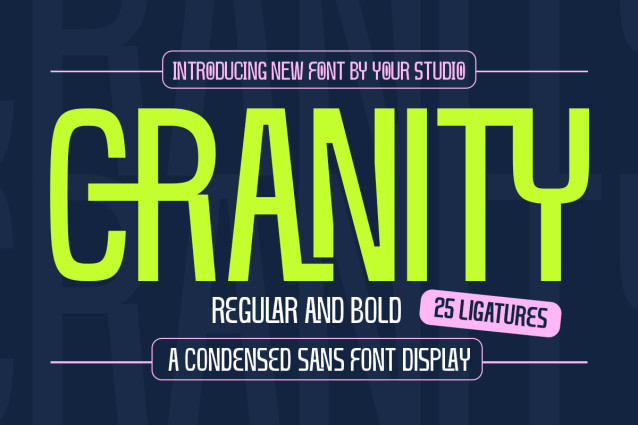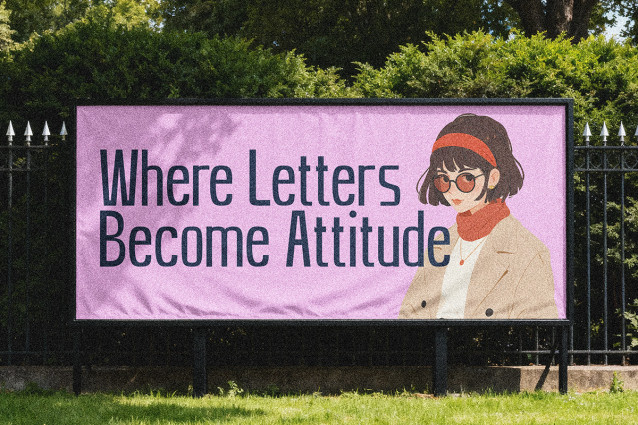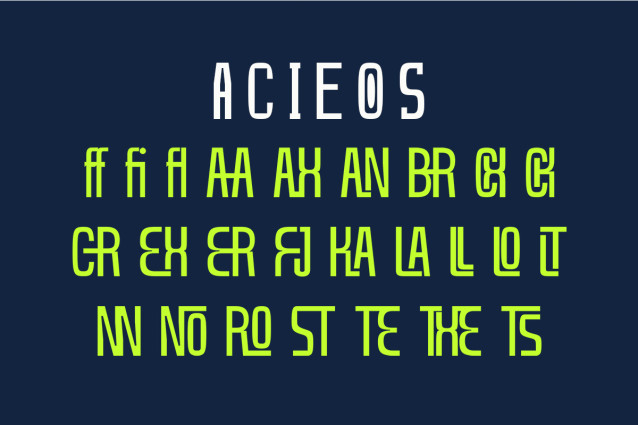
Cranity – Condensed Sans Serif Display Font
Cranity is a modern condensed sans serif display font crafted to deliver strong, clean, and professional typography for contemporary creative projects. With its narrow proportions and bold letterforms, this font maximizes visual impact while maintaining excellent readability.